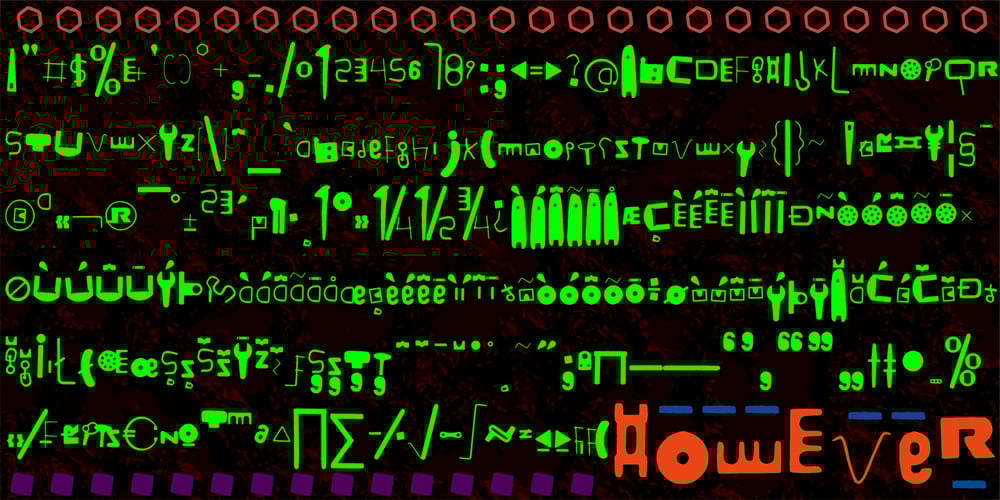
However Font Family was designed by Heikki Morgan Hämäläinen and published by Morganismi. However contains 1 styles and family package options. However is a delightful font. It consists of little object silhouettes. Supports multiple languages.